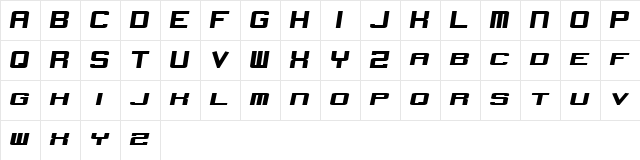
NeverSayDie Regular
NeverSayDie Family
Design Context for NeverSayDie
NeverSayDie is a composed and adaptable typeface that performs quietly and consistently across a wide range of design contexts.